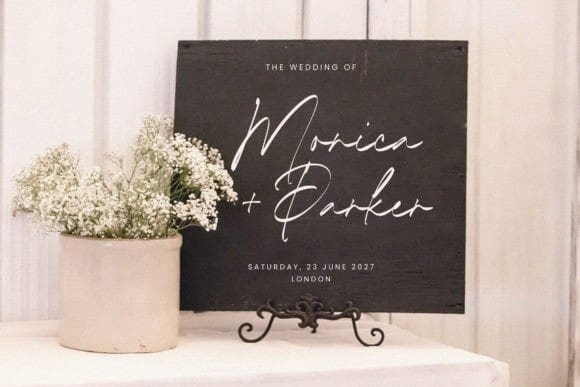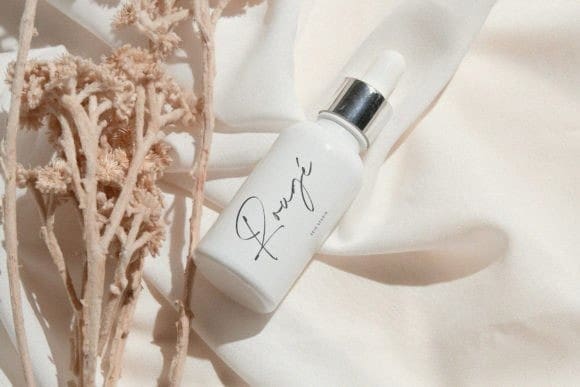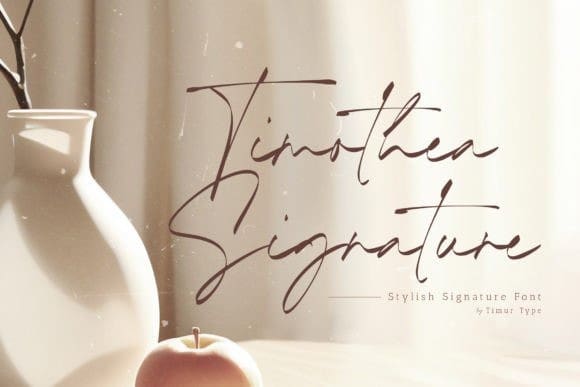
Timothea Signature Font
Timothea Signature Font is a Stylish Signature Font. This font resembles handwriting. With attention to detail and stylish strokes in every line, this font adds a touch of sophistication and distinctive style to any design or text it is applied to.
The distinctive nature of small lines makes them perfect for creating attention-grabbing titles, logos, or other elements.